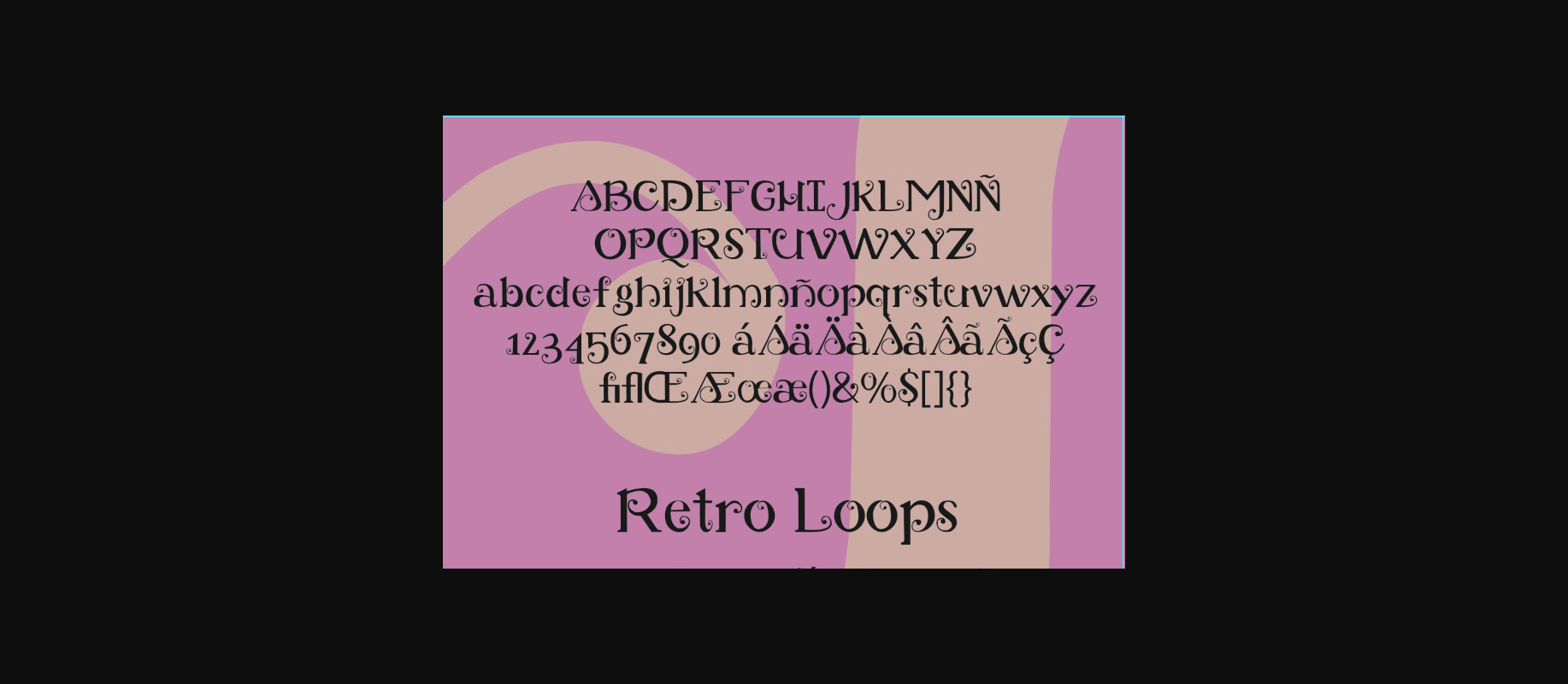
HomeDecorative FontsRetro Loops Font Decorative Fonts Retro Loops Font FacebookXPinterestWhatsApp 1 of 1 About Retro Loops Font Retro loops is a decorative, attractive, fun font with a lot of personality. Great for titles or bigger texts. DOWNLOAD NOW People also explored Strangeways Font Christmas Sweety Font Tick Tack Font Biohazard Font Brestyan Hilarend Font Die Nasty Jackarta Font Muathuk Font Zupiters Brush Font 263 0 TagsRetro Loops Font Previous articleSahan FontNext articleHegran Font LEAVE A REPLY Cancel reply Comment: Please enter your comment! Name:* Please enter your name here Email:* You have entered an incorrect email address! Please enter your email address here Website: Save my name, email, and website in this browser for the next time I comment. Personal Use Free Clumed Personal Use Free Read more about this font Cinderella Personal Use Free Read more about this font Camping Personal Use Free Read more about this font Rookie Mastering Personal Use Free Read more about this font BLOG 5 Fonts That Will Dominate Design Trends in 2026 5 Fonts for 2026 That Will Dominate Design Trends Typography plays a critical role in visual communication, and as we look ahead to 2026, it’s... Free Fonts Risk: Why Free Fonts Can Be Dangerous for Designers Where to Buy American Fonts Online in 2024 Best Fonts for YouTube Videos: Make Your Thumbnails Stand Out